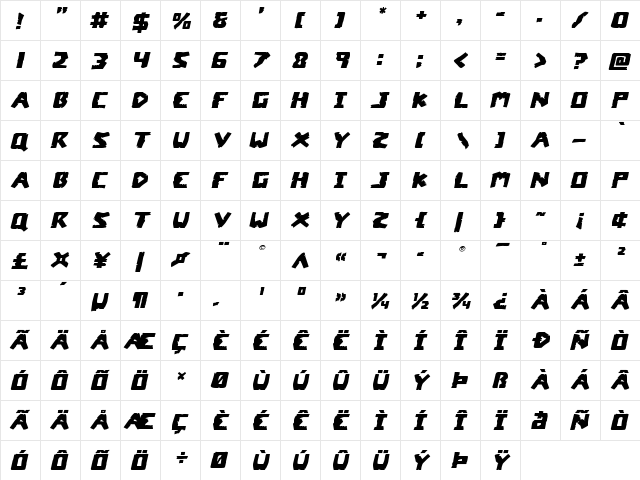
Coffin Stone Expanded Italic Expanded Italic
Design Context for Coffin Stone Expanded Italic Typeface
Coffin Stone Expanded Italic is a composed and adaptable typeface that performs quietly and consistently across a wide range of design contexts. The dynamic lean of this cut emphasises speed and emphasis in any layout.
Pro Tip: Try Coffin Stone Expanded Italic for annotation and caption copy alongside an upright companion — the contrast in angle creates a dynamic but ordered typographic system.